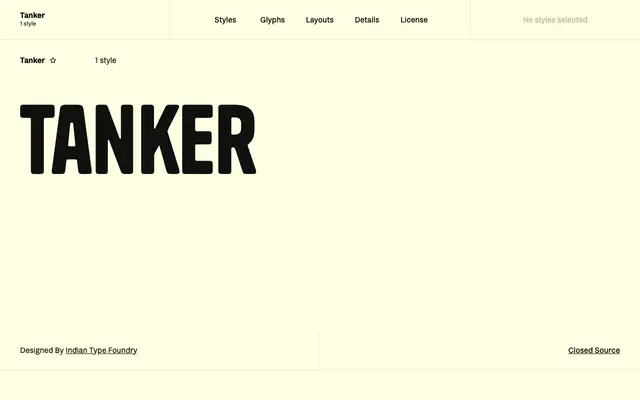
Tanker
A single-weight, uppercase-only condensed display sans by Ruosi Huang, with two distinct letterform sets and universally rounded corners.
Designed by Ruosi Huang and released via Fontshare in August 2021, Tanker offers two versions of each capital letter: the uppercase keys deliver more experimental, dynamic forms, while the lowercase keys hold traditional sans serif caps. A secondary set of numerals is accessible via an OpenType Stylistic Set. Rounded corners soften what is otherwise a heavy, condensed presence suited to posters, banners and logotype work.
Tanker is classified by Fontshare as Sans/Display. Its uppercase-only design with rounded corners, heavy weight and condensed proportions place it firmly in the display category rather than a functional text sans.